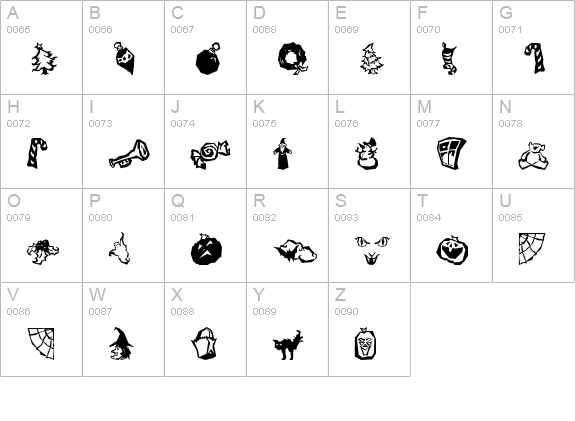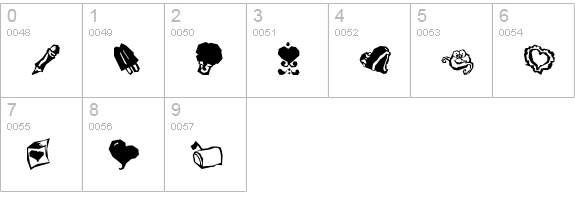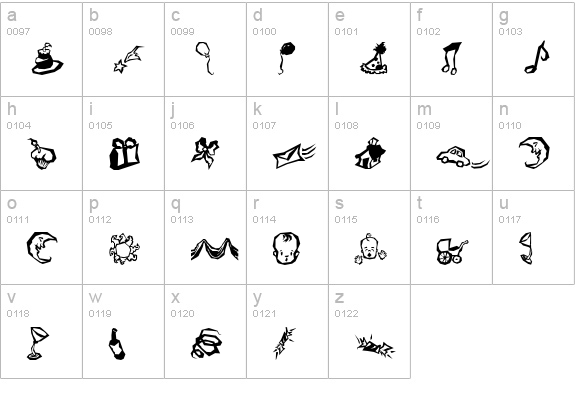
HolidayMixICG Font Details
HolidayMixICG font is a delightful and vibrant typeface perfect for adding a touch of festive charm to your designs. With its playful and decorative style, this font captures the essence of holiday celebrations and joy. Featuring a mix of intricate swirls and whimsical details, HolidayMixICG is sure to make your projects stand out. The best part is that HolidayMixICG font is completely free to download at FontsMarket.com. This means you can easily access this charming font and use it in your personal or commercial projects without any cost. Whether you're creating greeting cards, invitations, posters, or social media graphics, HolidayMixICG font will bring a cheerful and festive vibe to your designs. Download it today and spread the holiday spirit with every letter you type!